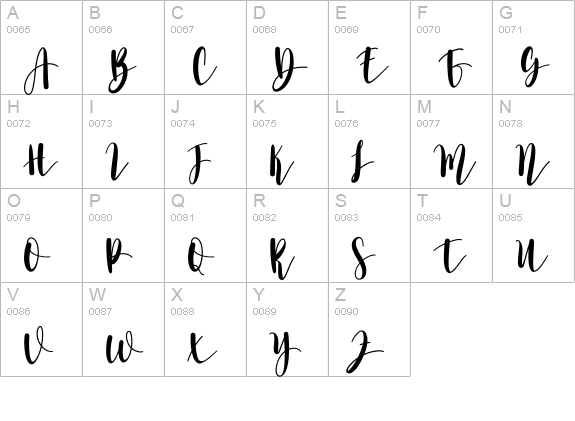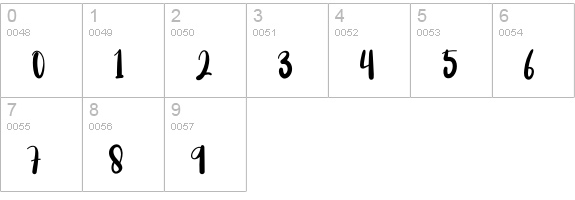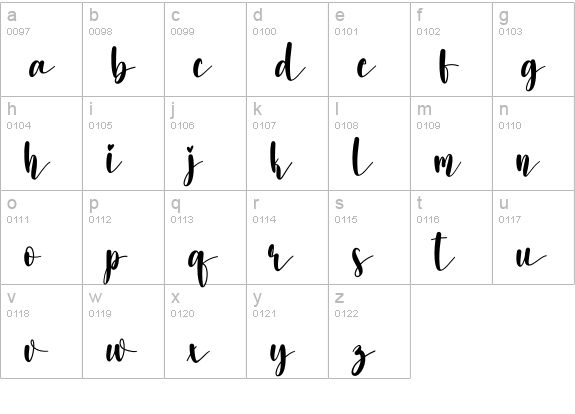
Signature Font Details
Signature is a free for personal use font in the Script > Handwritten category, designed by scratchones. It has been downloaded 24 times and is available for Windows, Mac and Linux.
Introducing the stunning Signature font, a beautifully crafted typeface that exudes elegance and sophistication. With its flowing curves and stylish flair, this font is perfect for adding a touch of luxury to any project. Whether you're designing wedding invitations, branding materials, or social media graphics, Signature font will elevate your work to a whole new level.